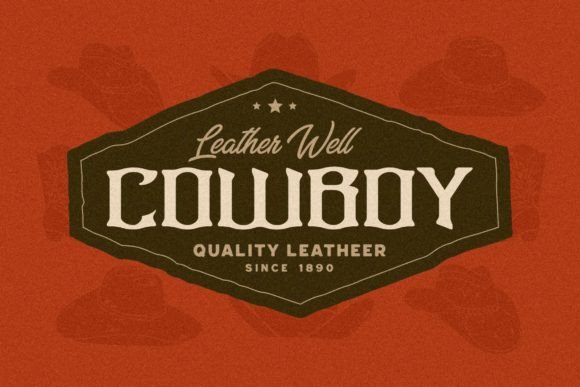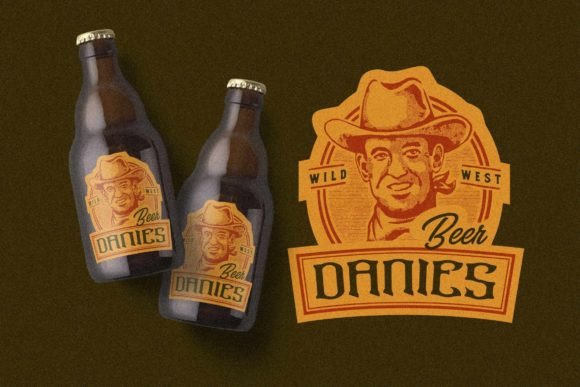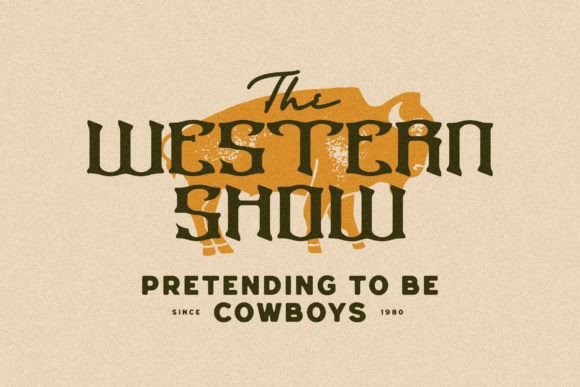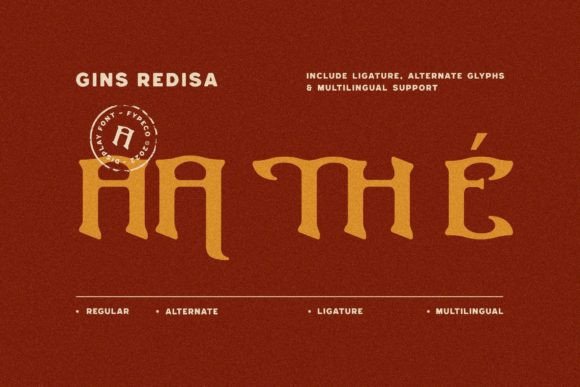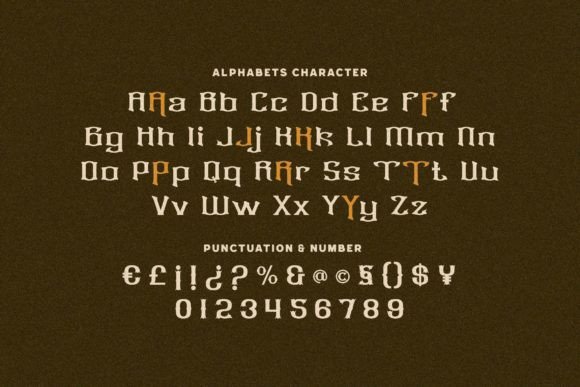
Gins Redisa Font: A Retro and Western-Looking Display Font to Elevate Your Designs
Are you tired of using the same old fonts in your designs? Look no further than Gins Redisa, a unique and vintage display font that’s sure to capture attention. With its retro and western-inspired aesthetic, Gins Redisa is the perfect addition to any design project. In this article, we’ll explore the features and benefits of Gins Redisa, and show you how to incorporate it into your work to take your designs to the next level.
What is Gins Redisa?
Gins Redisa is a display font designed to evoke the spirit of the wild west. Its rugged, vintage look is perfect for creating eye-catching designs that stand out from the crowd. Whether you’re working on a book cover, magazine spread, social media post, or invitation, Gins Redisa is the ideal choice. Its unique characters and distressed texture give it a one-of-a-kind look that’s sure to leave a lasting impression.
Key Features of Gins Redisa
- Retro and Western-Looking Design: Gins Redisa’s unique design is inspired by the rugged, wild west era. Its bold lines and distressed texture give it a vintage look that’s perfect for creating authentic and eye-catching designs.
- Display Font: As a display font, Gins Redisa is designed to make a statement. Its large and bold characters are perfect for headlines, titles, and other attention-grabbing elements in your designs.
- Versatile: Gins Redisa is a versatile font that can be used in a wide range of design projects, from books and magazines to social media posts and invitations.
- Easy to Use: With its simple and clean design, Gins Redisa is easy to read and works well in both digital and print formats.
Benefits of Using Gins Redisa
So why choose Gins Redisa for your designs? Here are just a few benefits of using this unique font:
- Adds a Touch of Authenticity: Gins Redisa’s vintage design gives your work an authentic, nostalgic feel that’s perfect for creating designs that stand out.
- Increases Readability: Despite its bold and distressed texture, Gins Redisa is surprisingly easy to read, making it perfect for use in body text and other smaller design elements.
- Enhances Creativity: With its unique and eye-catching design, Gins Redisa is sure to inspire your creativity and take your designs to the next level.
How to Use Gins Redisa in Your Designs
Ready to start using Gins Redisa in your designs? Here are a few tips to get you started:
- Pair it with Other Fonts: Combine Gins Redisa with other fonts to create a unique and visually appealing design. Try pairing it with a clean sans-serif font for a bold and modern look.
- Experiment with Colors: Gins Redisa looks great in a range of colors, from bold and bright to muted and earthy. Experiment with different color schemes to find the perfect look for your design.
- Use it for Headlines and Titles: As a display font, Gins Redisa is perfect for use in headlines and titles. Use it to grab attention and draw the reader in.
In conclusion, Gins Redisa is a unique and versatile font that’s perfect for designers and crafters looking to add a touch of authenticity and creativity to their work. With its retro and western-inspired design, Gins Redisa is sure to capture attention and elevate your designs to the next level. So why wait? Download Gins Redisa today and start creating stunning designs that stand out from the crowd!
Whether you’re working on a book cover, magazine spread, or social media post, Gins Redisa is the perfect choice. Its bold and distressed texture gives it a vintage look that’s sure to leave a lasting impression. So add Gins Redisa to your creations and take your designs to new heights!